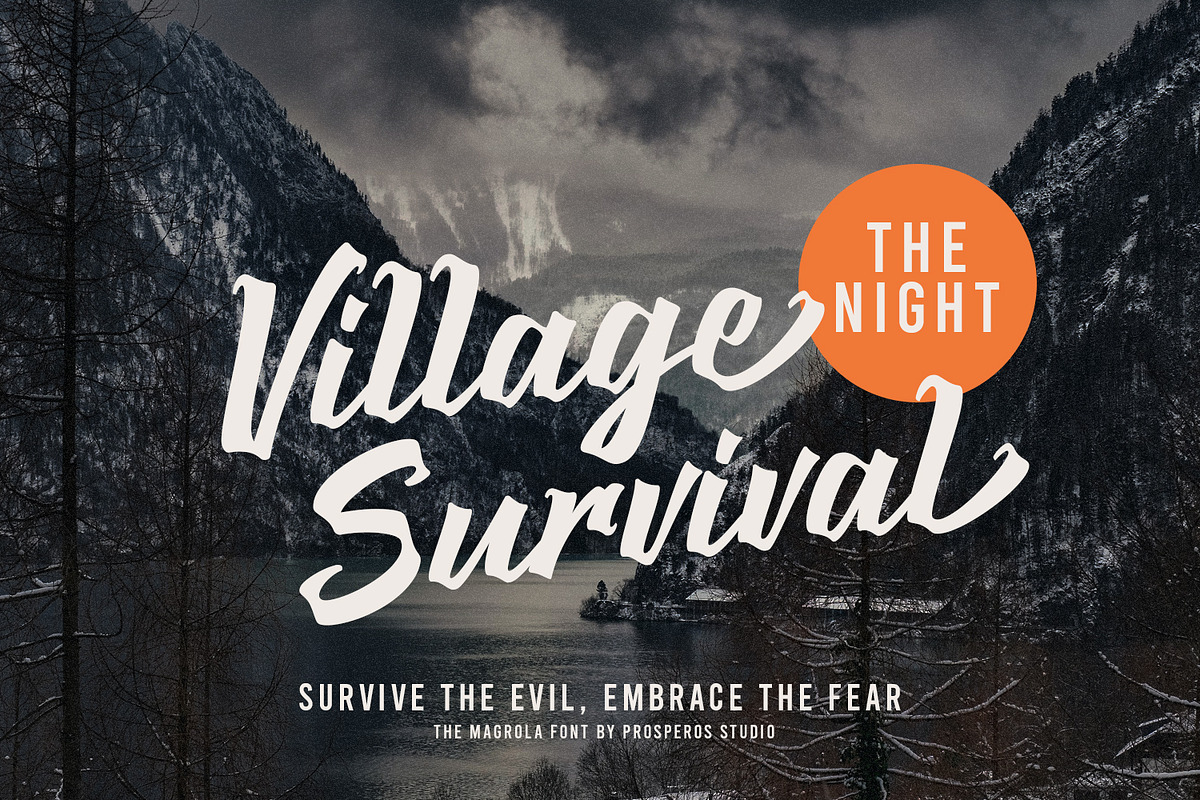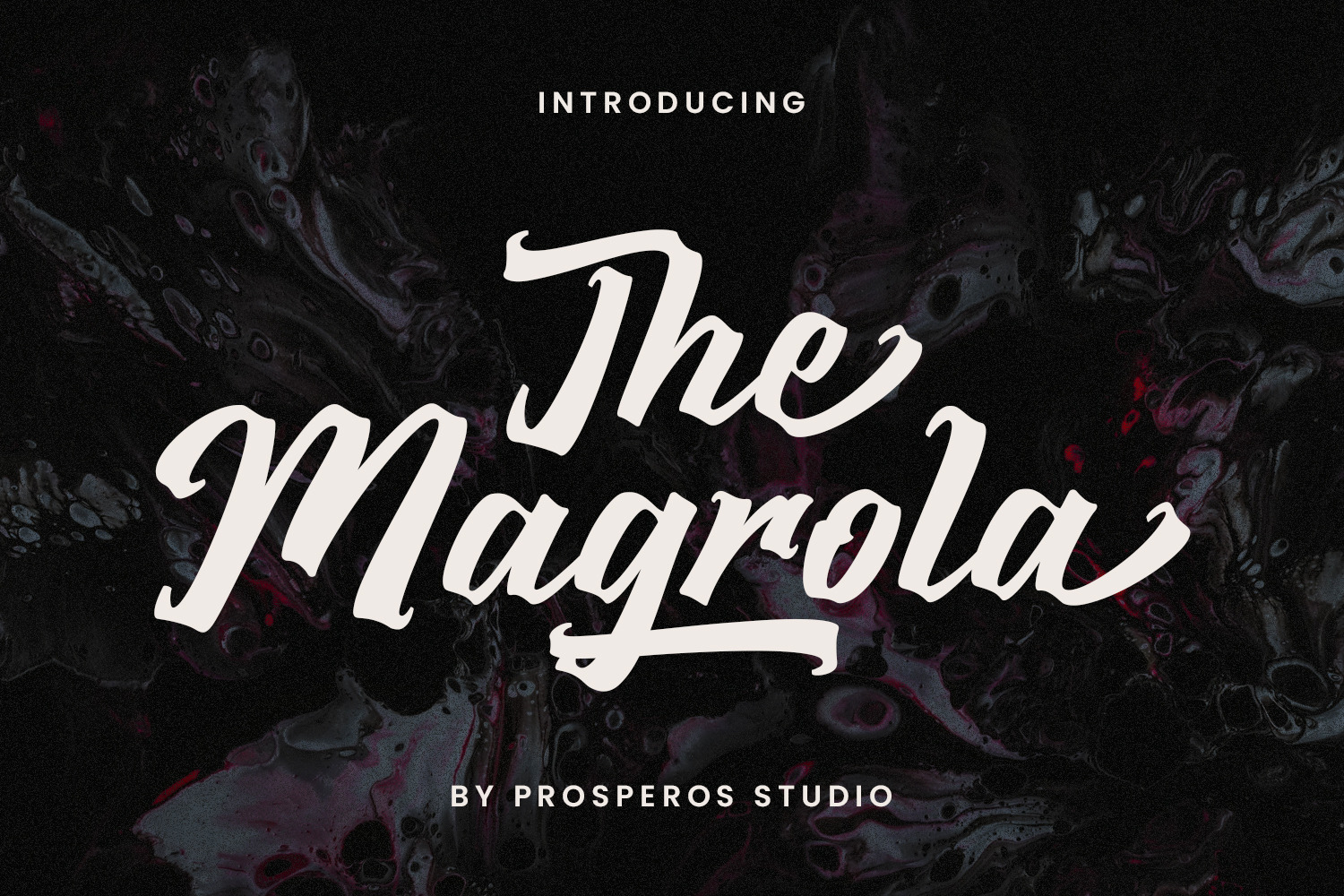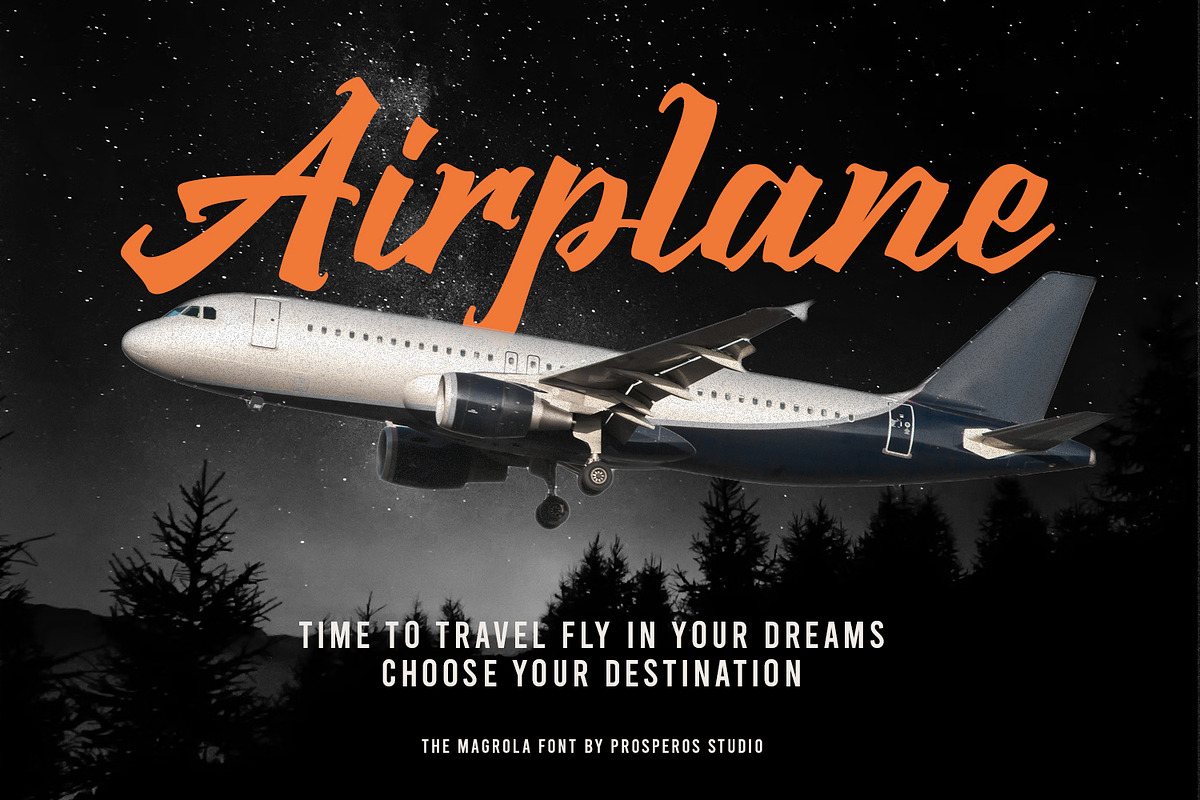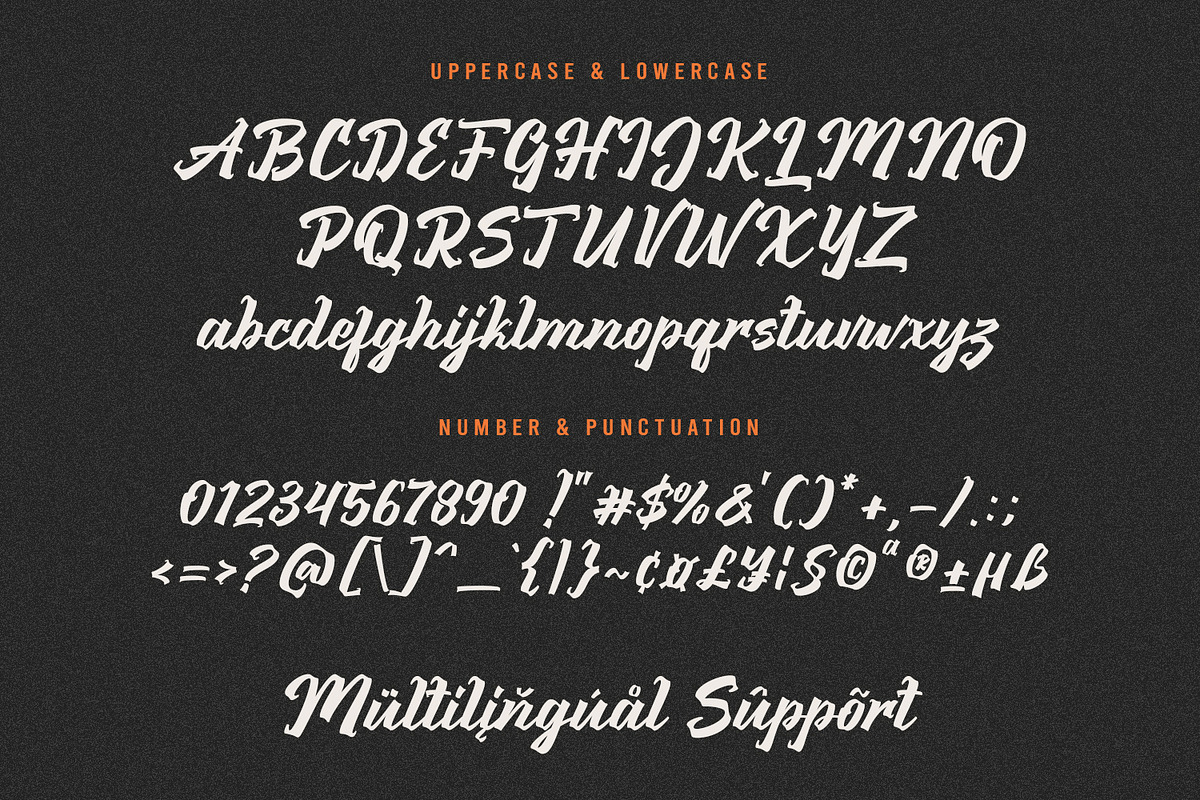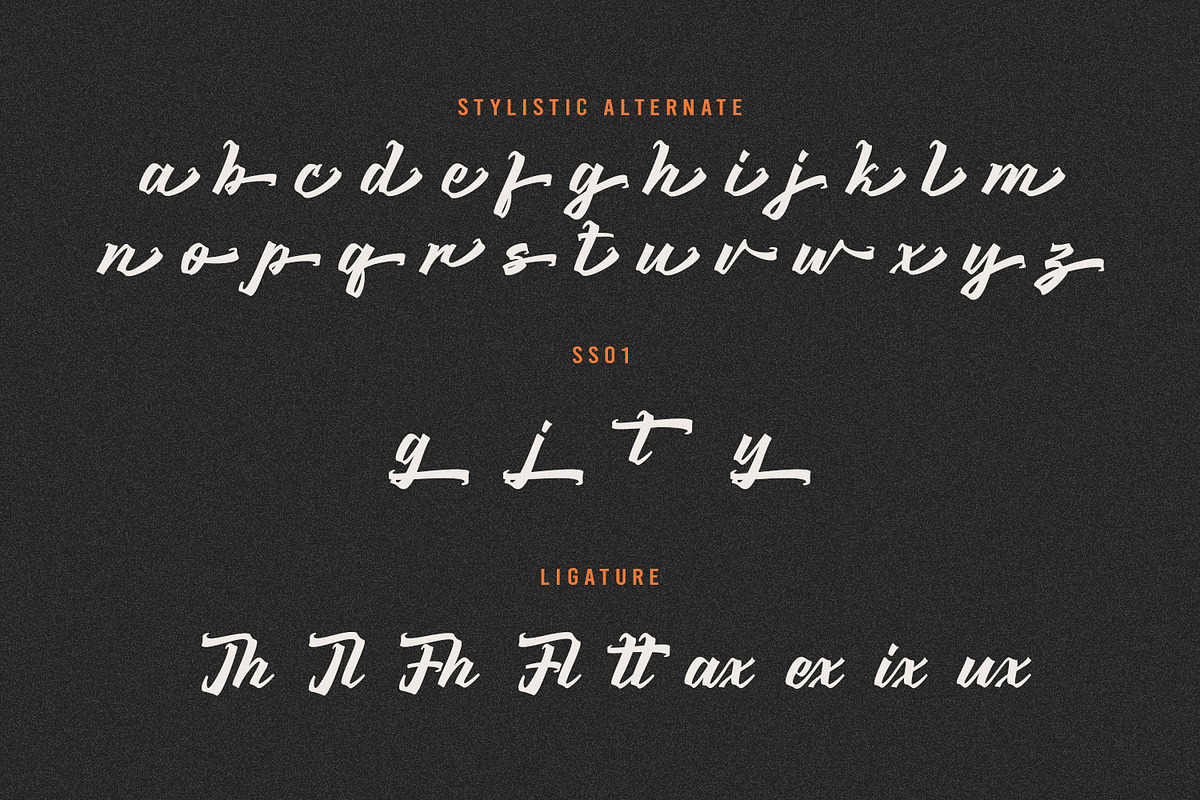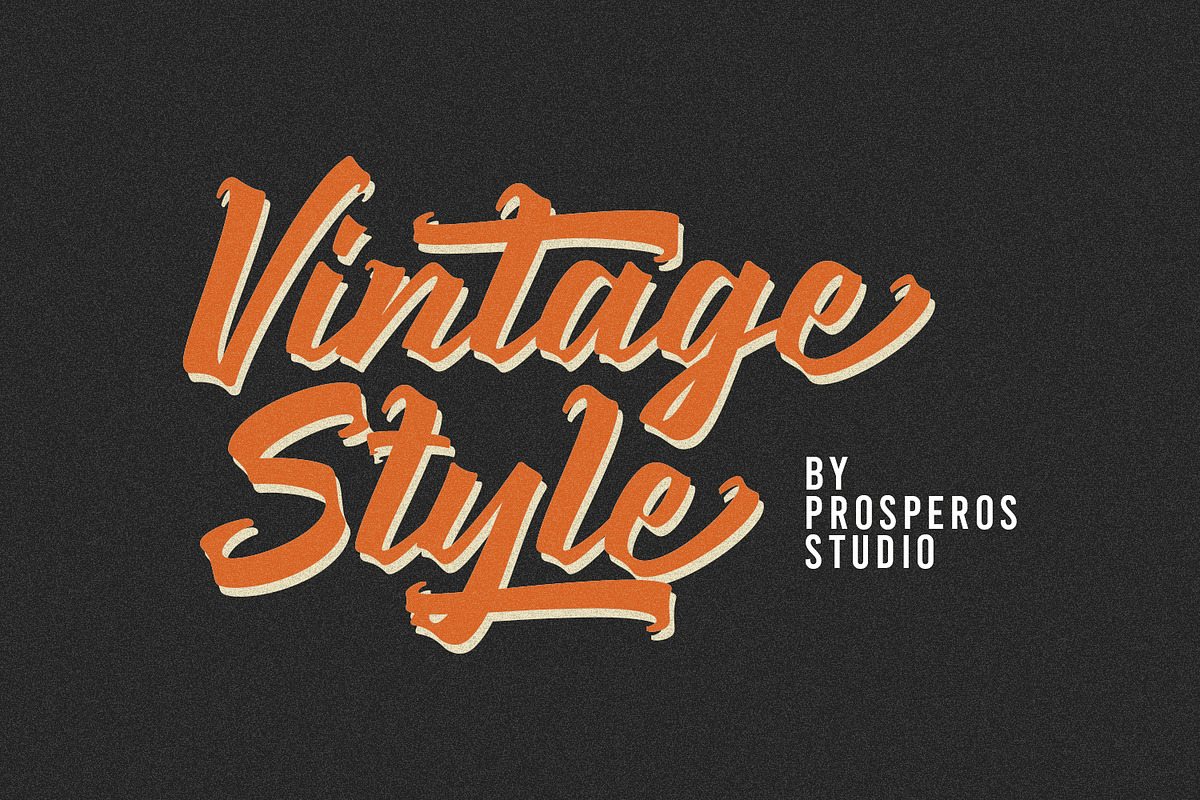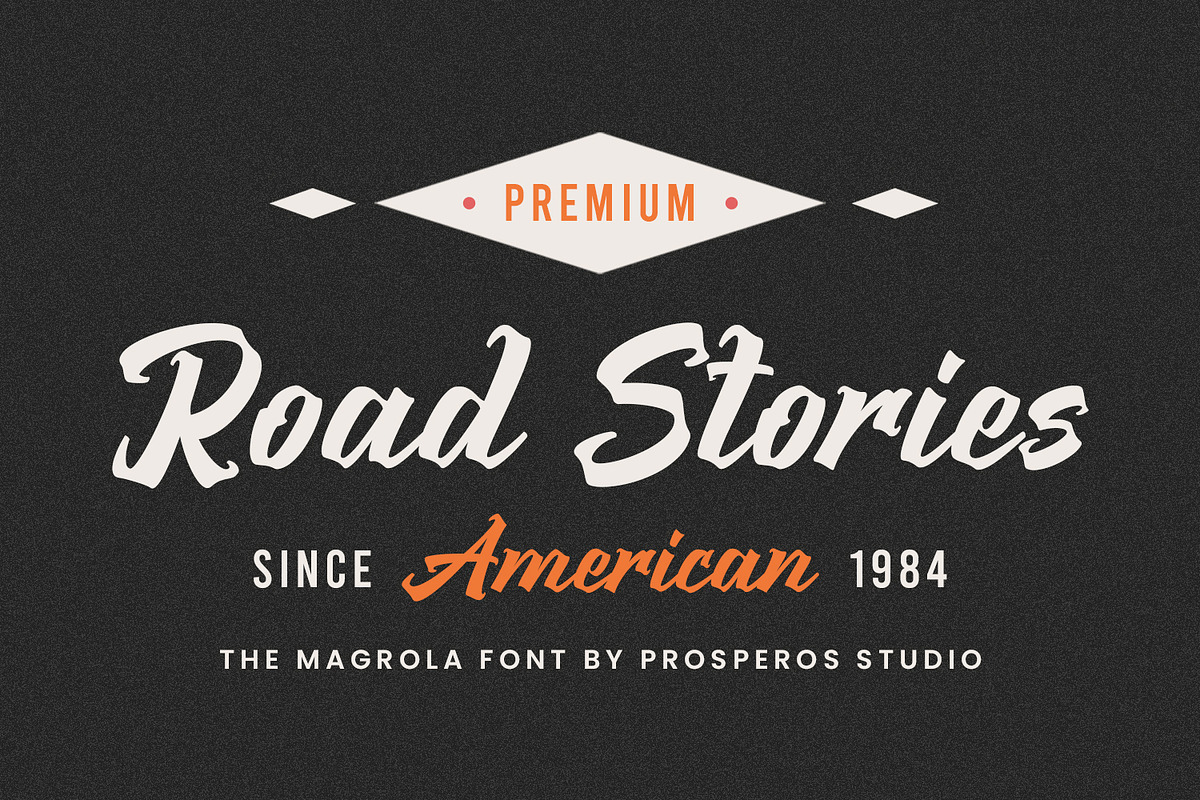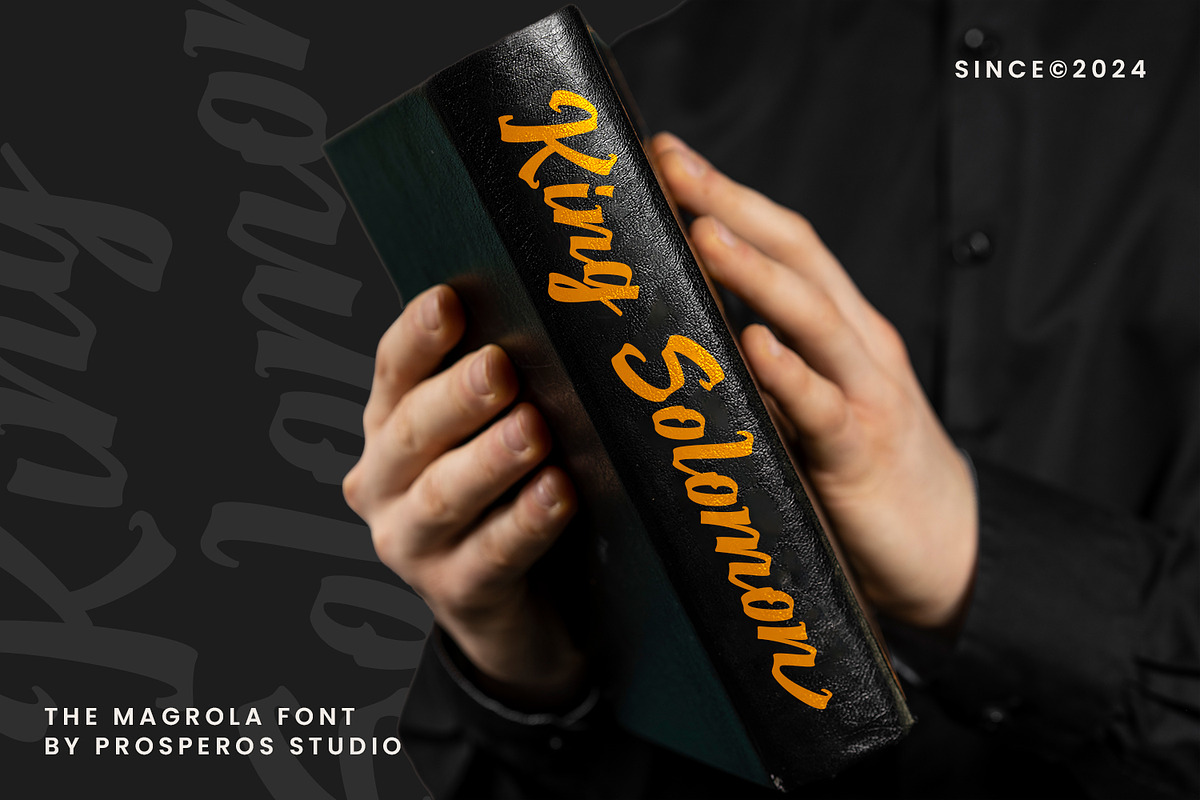
The Magrola - Vintage Script Font
The Magrola - Vintage Script Font is a vintage script font with clean brush strokes. It's very recommended for logo, branding, clothing, poster, and many more. You can customize every word with alternates characters and swashes.
- Number, Symbols, and Punctuation
- Alternate and Ligature